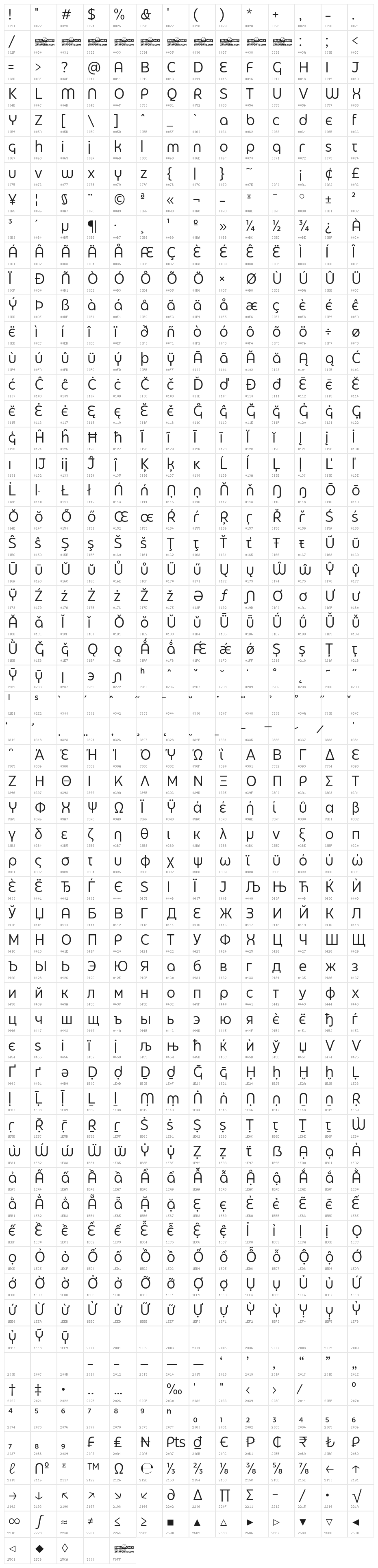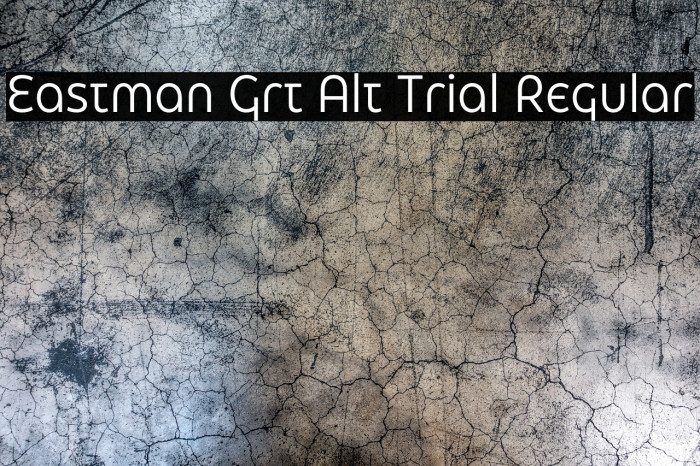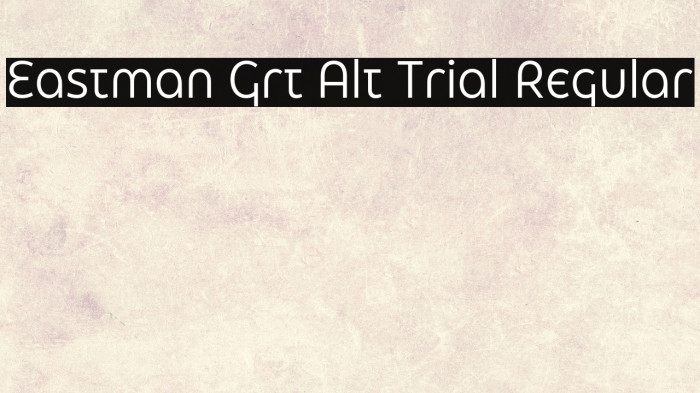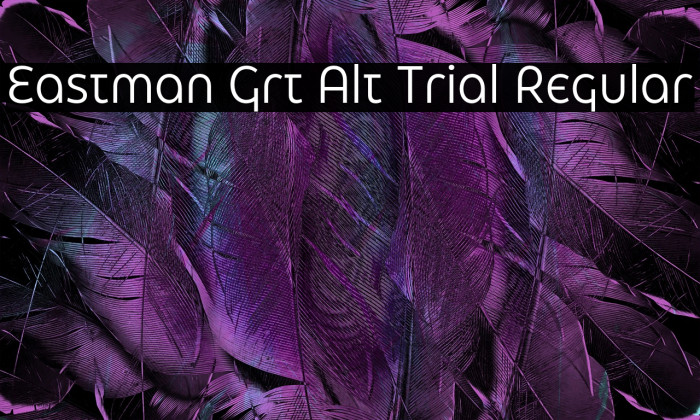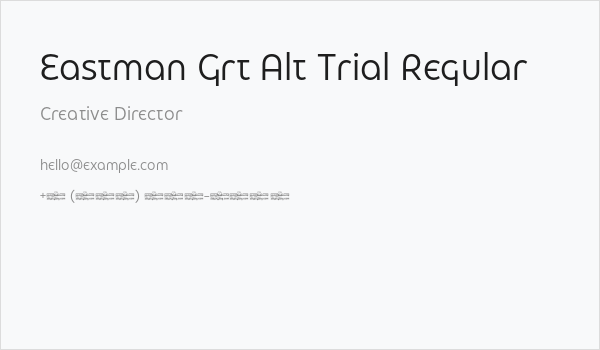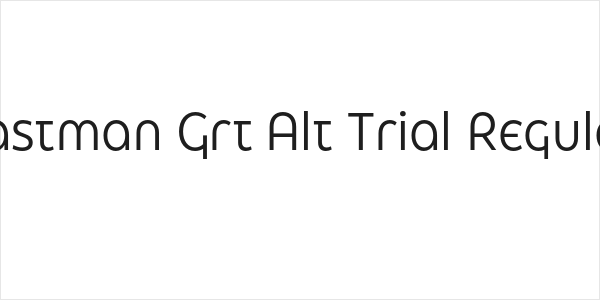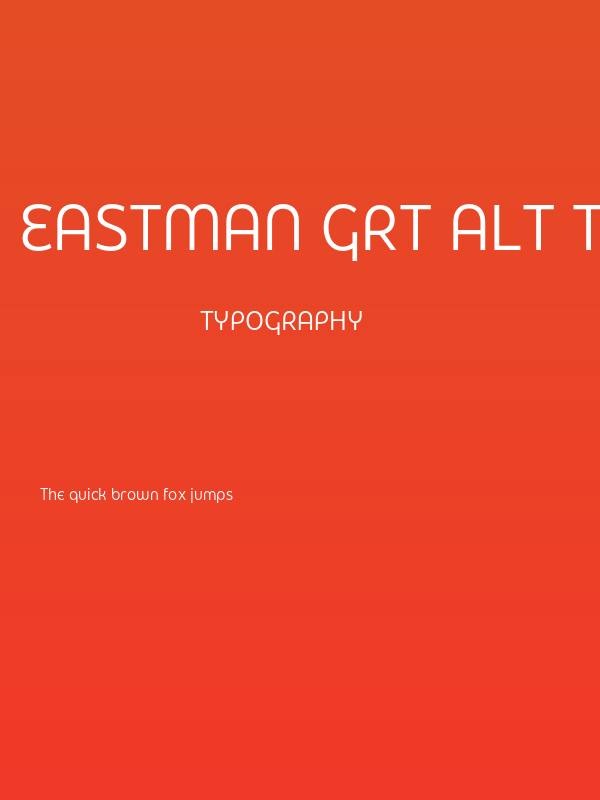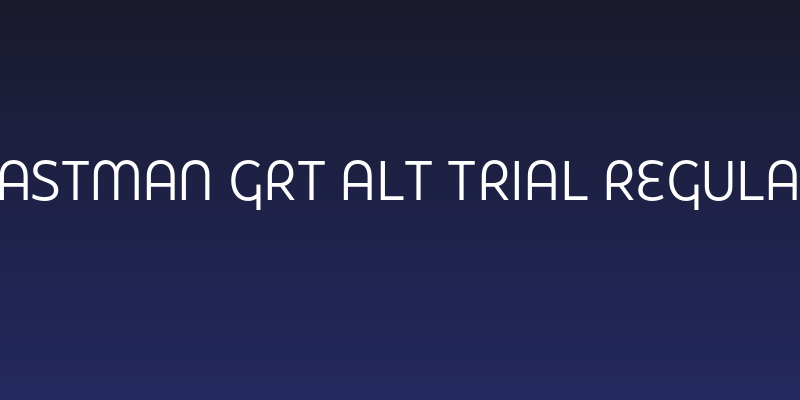
Eastman Grt Alt Trial Regular Font
Eastman Grt Alt Trial Regular Description
This font exhibits a modern and clean design with a geometric sans-serif style. The characters are evenly spaced, providing a balanced and harmonious appearance. The uppercase and lowercase letters maintain a consistent height and width, contributing to its uniformity. The rounded edges of the characters soften the overall look, making it approachable and friendly. The numerals and special characters are designed to match the letterforms, ensuring a cohesive appearance across all text. This font is versatile, suitable for both digital and print media, and can be used effectively in various design contexts.